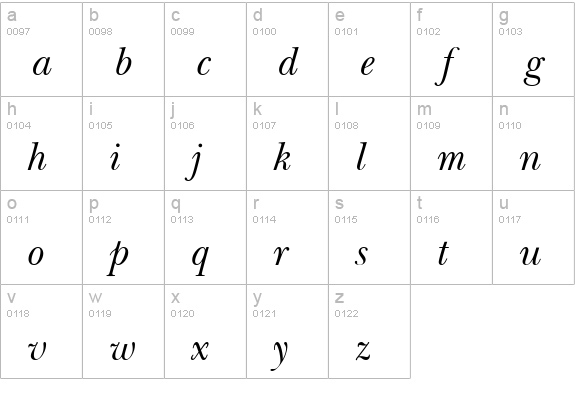
Baskerville Handcut ITALIC Font Details
Baskerville Handcut ITALIC is a distinctive, italic variant in the Baskerville typeface family \xE2\x80\x94 well suited to design and typography projects.
Baskerville Handcut ITALIC font is a stunning and elegant typeface that exudes sophistication and charm. Its unique italic style adds a touch of flair to any design project, making it a versatile choice for various creative endeavors. The hand-cut feel of this font gives it a distinct and artisanal look, perfect for adding a personal touch to your work. And the best part? Baskerville Handcut ITALIC font is available for free download at FontsMarket.com. You can easily access this exquisite font and elevate your designs with its timeless appeal. Whether you're working on branding, invitations, posters, or any other project that requires a touch of elegance, Baskerville Handcut ITALIC font is sure to make a lasting impression. Download it today and add a touch of sophistication to your creative work!